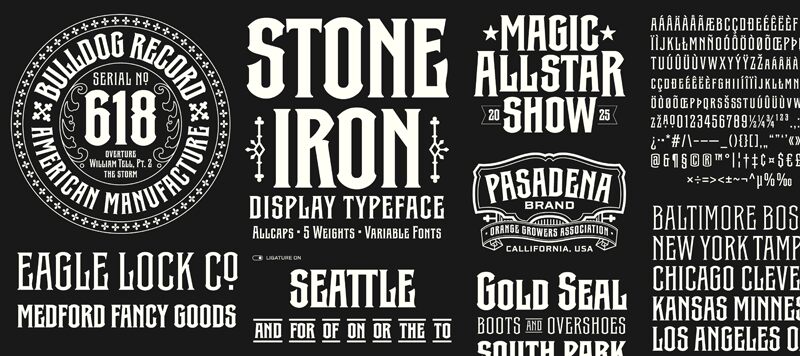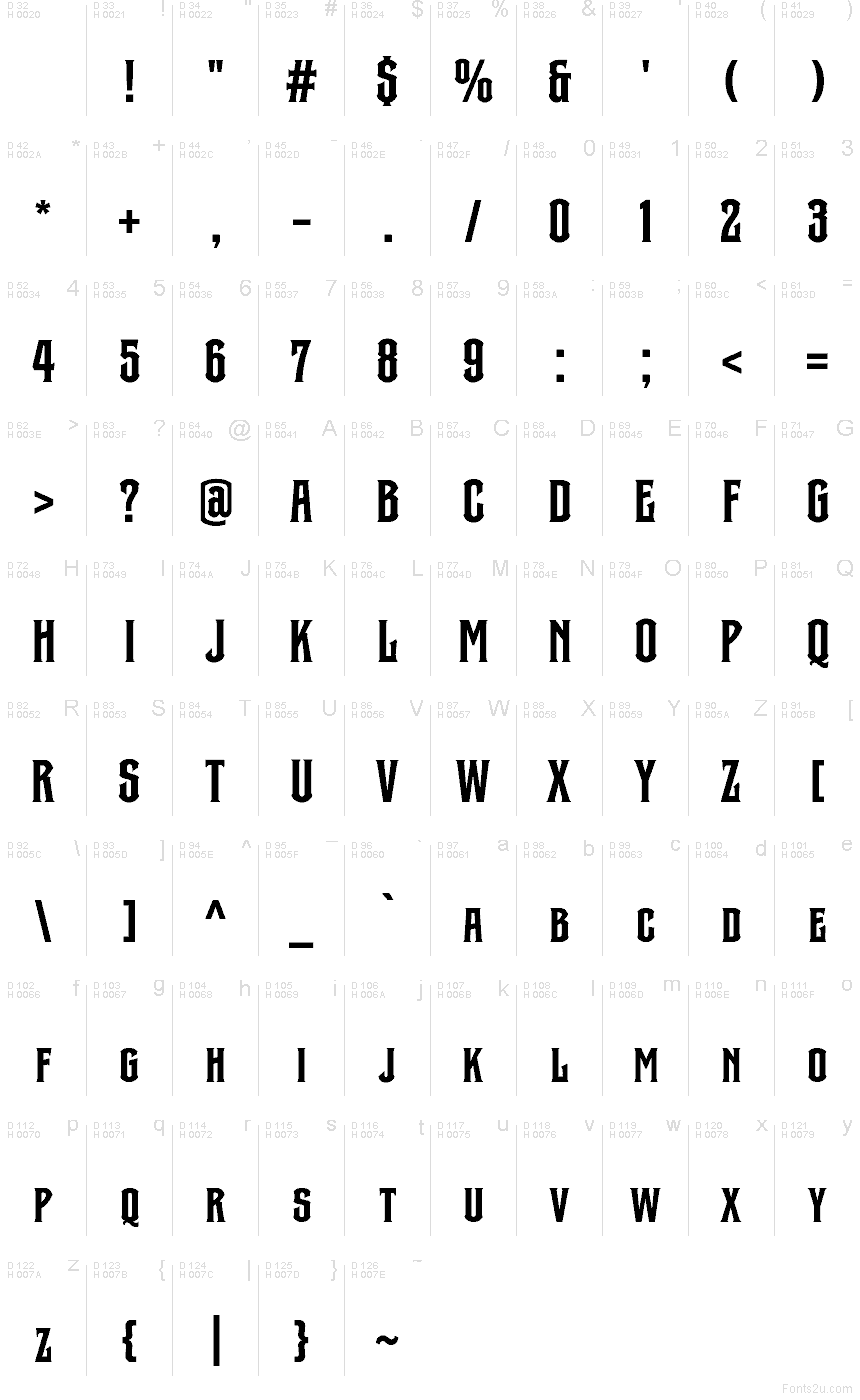
Stone Iron Bold font by Ilham Herry is a free retro display typeface that feels like it’s been forged from old signage and weathered metal. Thick, upright letterforms with narrow counters and squared curves give it a heavy, ironclad presence, while the tall proportions keep it from feeling clumsy. The Stone Iron family’s bold style hits that sweet spot between vintage poster drama and readable, blocky strength.
Using Stone Iron Bold, your headlines instantly gain a rugged, old-world character that still reads clean at a glance. This free font shines on beer labels, badges, event posters, game titles, apparel graphics, and themed restaurant branding. Set it large to show off the chunky details, and pair it with a simple sans serif for body copy to keep the overall layout balanced and legible.
Condensed typeface with unique spurs, this font boasts OpenType magic for catchy catchwords and optimal spacing. Featuring 5 static fonts and 1 variable font